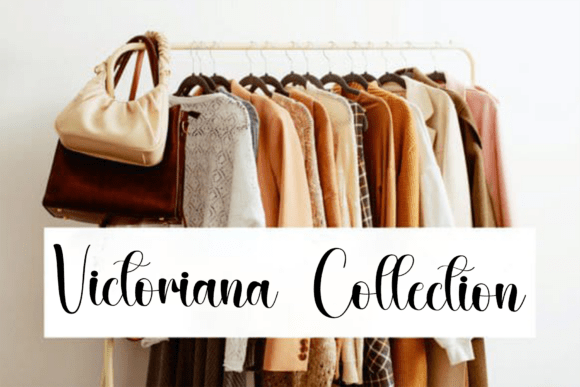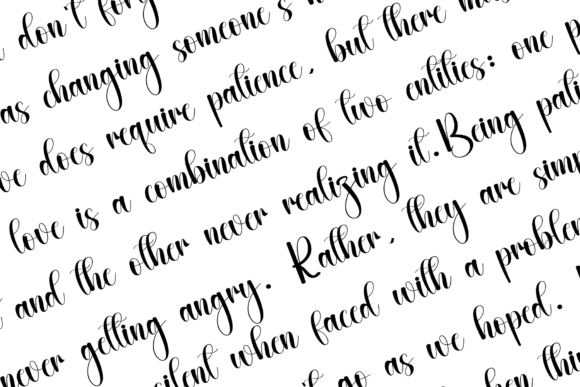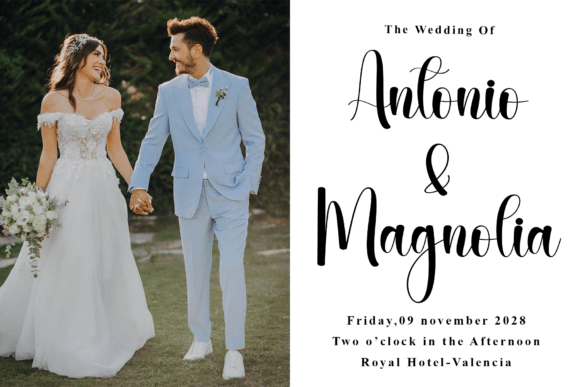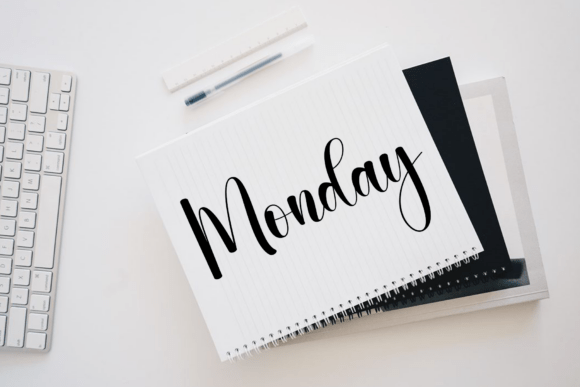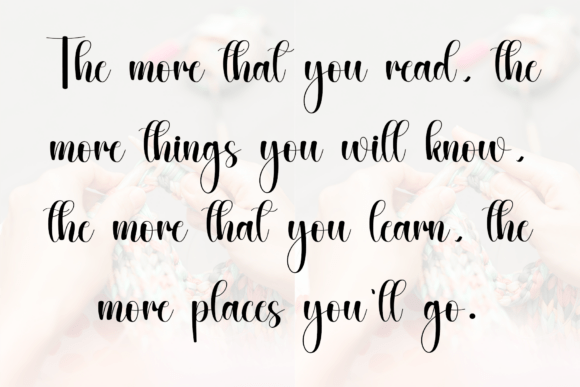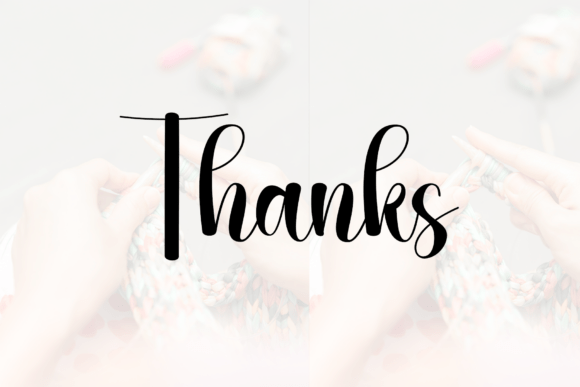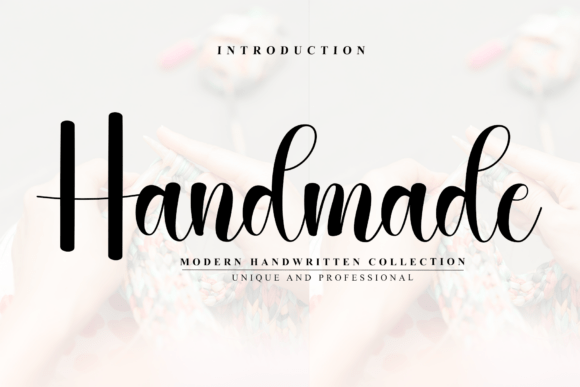
Discover the Authentic Charm of Handmade Font: Elevate Your Design with a Personal Touch
In the world of typography, few fonts capture the essence of warmth and craft as beautifully as the Handmade font. This casual yet striking modern handwritten script typeface is designed to bring an authentic, human touch to your designs, making it an ideal choice for brands and designers looking for a unique and personal style. With its bold, assertive presence and fluid motion of natural handwriting, the Handmade font is sure to make your text stand out immediately.
The Unique Characteristics of Handmade Font
The Handmade font boasts several distinctive features that set it apart from other script typefaces. Its design showcases a beautiful thick-to-thin stroke variation, which gives it a dynamic and organic feel. The slightly upright stance of the font ensures excellent readability, making it perfect for display scripts. Additionally, the font includes beautiful connecting letters and stylistic variations, allowing your text to flow naturally and avoiding a repetitive look.
Perfect for Artisanal Brands and Crafters
The Handmade font is an excellent choice for brands focused on artisanal products, crafting, DIY tutorials, or creating personalized stationery and invitations. Its unique blend of professionalism and coziness makes it ideal for designers who want to give their logos, packaging, and social media graphics a genuinely personal touch. Whether you’re a crafty entrepreneur or a designer looking for a distinctive font, the Handmade font is sure to inspire your creativity.
• PUA-encoded: The Handmade font is PUA-encoded, allowing effortless access to all glyphs, swashes, and stylistic variations.
• Beautiful connecting letters: The font features beautiful connecting letters that ensure your text flows naturally.
• Stylistic variations: The font includes stylistic variations that help avoid a repetitive look and add a touch of uniqueness to your designs.
• Excellent readability: The slightly upright stance of the font ensures excellent readability, making it perfect for display scripts.
• Dynamic and organic feel: The thick-to-thin stroke variation gives the font a dynamic and organic feel that’s perfect for artisanal brands.
How to Use Handmade Font in Your Designs
The Handmade font is incredibly versatile and can be used in a variety of design applications. Here are a few ideas to get you started:
• Logos and branding: Use the Handmade font to create a unique and memorable logo that reflects your brand’s personality.
• Packaging design: Add a personal touch to your packaging with the Handmade font, making it stand out on store shelves.
• Social media graphics: Use the font to create engaging social media graphics that showcase your brand’s personality.
• Stationery and invitations: Create personalized stationery and invitations that exude warmth and sophistication.
The Handmade font is a unique and captivating script typeface that’s perfect for designers and crafters looking for a personal touch. With its bold, assertive presence and fluid motion of natural handwriting, it’s sure to make your text stand out. Whether you’re a seasoned designer or a crafty entrepreneur, the Handmade font is an excellent choice for anyone looking to elevate their design with a touch of authenticity and charm.